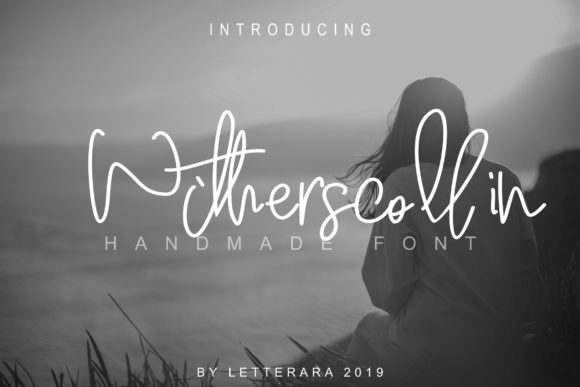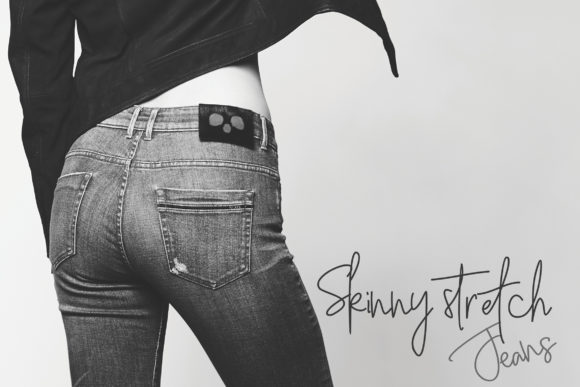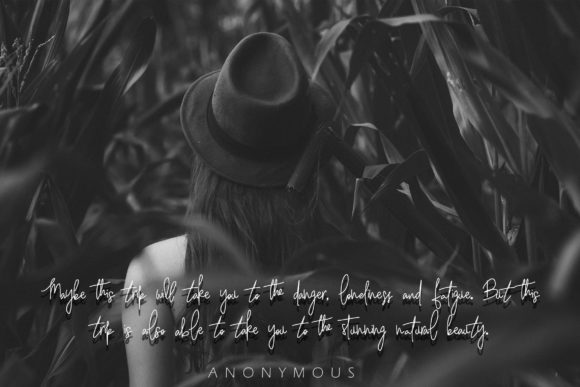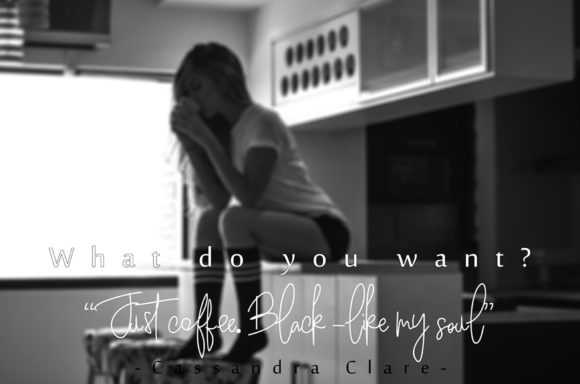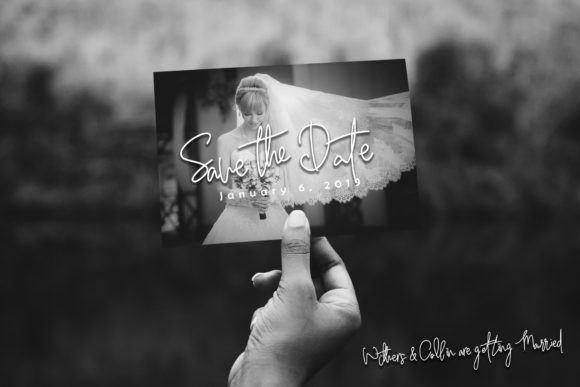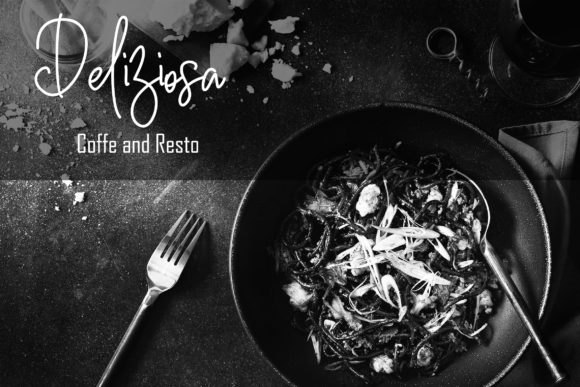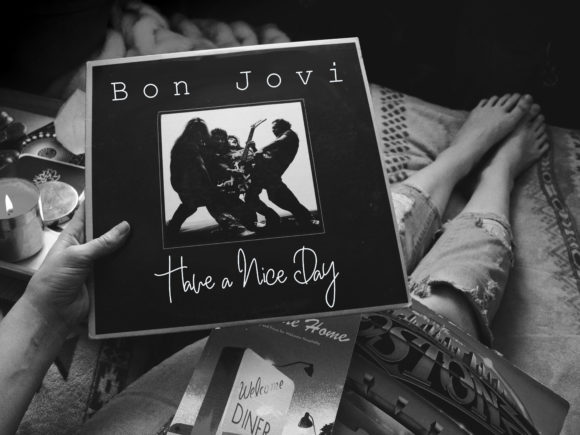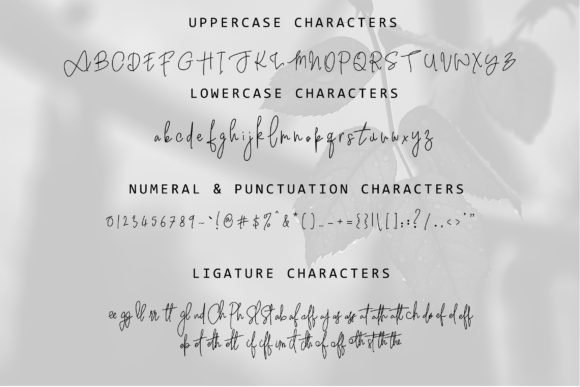
Witherscollin Family Font
About Witherscollin Family Font
The Witherscollin is a stylish handwritten font and easy to remember. It’s great for unique branding, photo overlays, watermarks, business cards, invitations, wedding, photography, fashion, and much more!